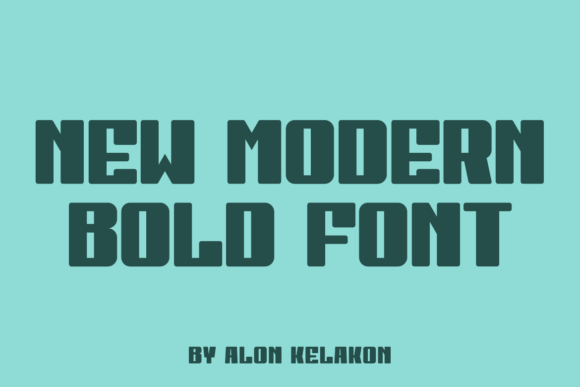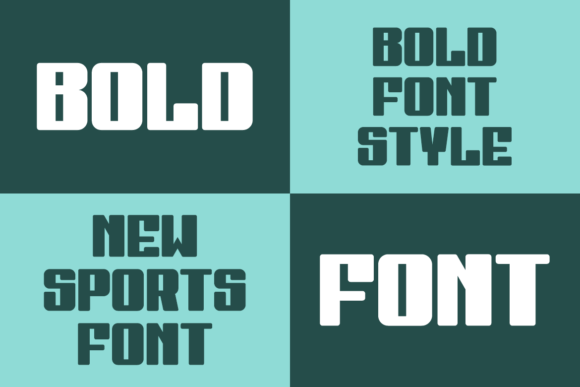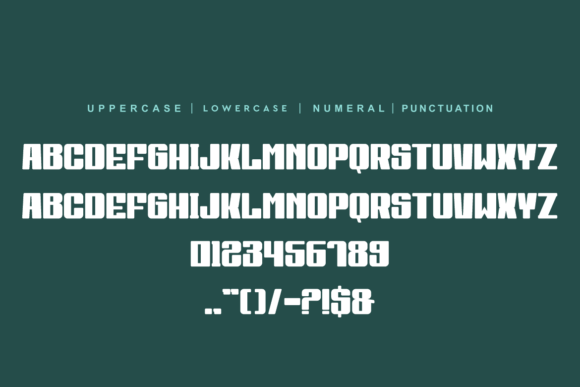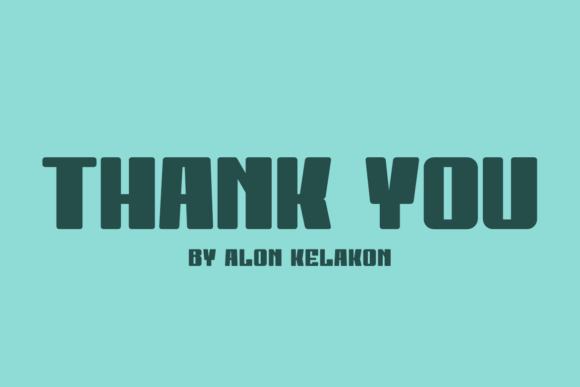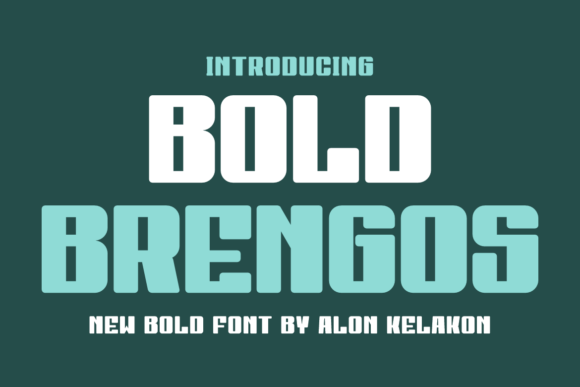
Discover the Power of Bold Brengos Font: A Modern Display Font for Creative Projects
I’ll never forget the time I was working on a project for a client who needed a bold, eye-catching font to capture the essence of their brand. I scoured the internet, trying out font after font, but nothing seemed quite right. That was until I stumbled upon Bold Brengos Font. This modern and bold display font has been a game-changer for my design work, and I’m excited to share its awesomeness with you! 😊
A Personal Review of Bold Brengos Font
- 💥 **Impactful and attention-grabbing**: Bold Brengos Font is perfect for making a statement with your designs.
- 🎨 **Versatile**: This sans serif font can be used for a wide range of projects, from labeling and clothing to movie scenes and album covers.
- 👍 **Easy to read**: Despite its boldness, the font remains clear and easy to read, even at smaller sizes.
- 🤝 **Unique and modern**: Bold Brengos Font has a distinctive style that will set your designs apart from the crowd.
While Bold Brengos Font is an excellent choice for many projects, there are a few things to keep in mind:
- 🤔 **Limited use for body text**: Due to its bold nature, this font may not be the best choice for large blocks of text.
- ⚠️ **May not be suitable for very small sizes**: While the font remains clear at smaller sizes, it may lose some of its impact.
Bold Brengos Font comes with a range of OpenType features and glyphs that can enhance your designs. Here are a few tips for accessing and using these features:
The Backstory of Bold Brengos Font
Bold Brengos Font was designed with the goal of creating a modern and bold display font that would make a statement. The designer drew inspiration from a range of sources, including urban landscapes and modern typography. The result is a font that’s both unique and impactful.
Q: What type of projects is Bold Brengos Font best suited for?
A: Bold Brengos Font is perfect for projects that require a bold and attention-grabbing font, such as movie titles, album covers, logos, and posters.
Q: Is Bold Brengos Font easy to read?
A: Despite its boldness, Bold Brengos Font remains clear and easy to read, even at smaller sizes.